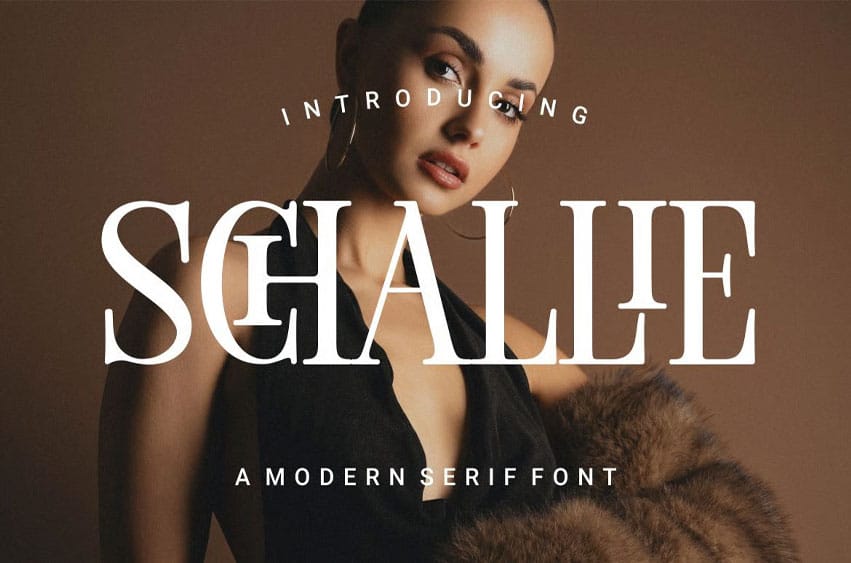
Schallie Font is that epitomizes modern luxury and elegance. Designed to elevate your brand, Lavish combines contemporary style with timeless sophistication, making it perfect for logos and high-end branding projects